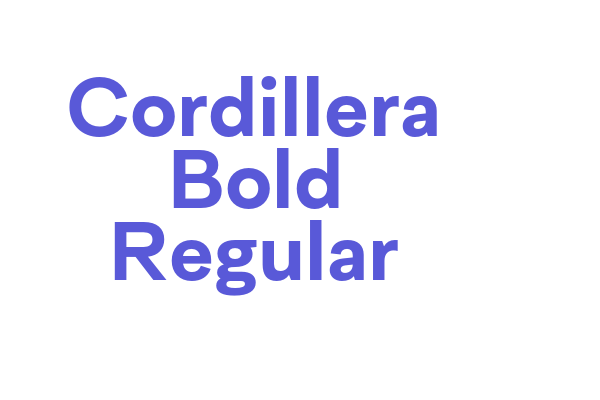
Cordillera Bold Regular is a basic sans-serif font designed by Luciano Vergara from the Latinotype Team. With a bold style, this font is perfect for creating impactful headlines and titles. Its clean and modern design makes it ideal for a variety of design projects that require a strong and contemporary look.